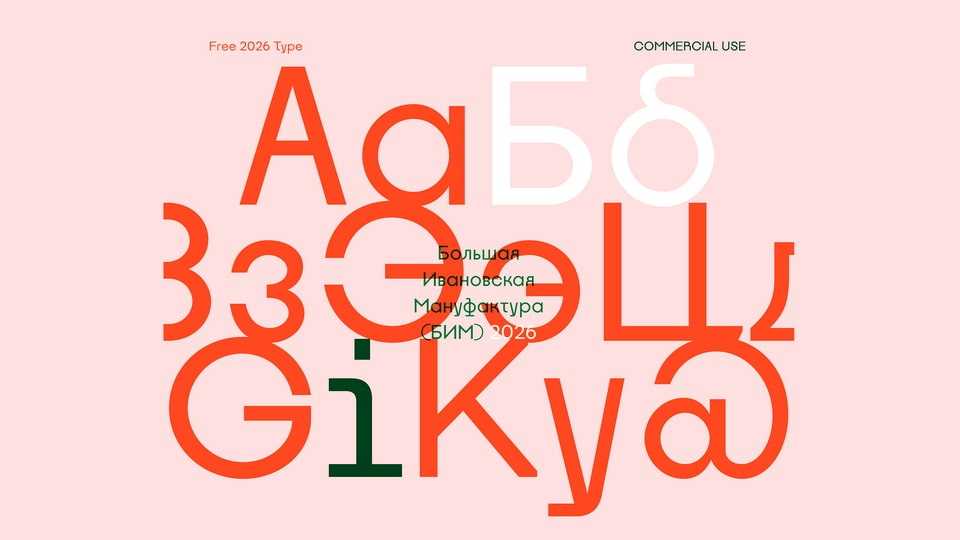
Download Bolshaya Ivanovskaya Manufaktura font, a geometric sans-serif, named in honor of The Ivanovo Big Manufactory, with an emphasis on the letters of the Russian Cyrillic alphabet, equipped with a cash register of experimental signs.
Designer: Ilya Kolobov